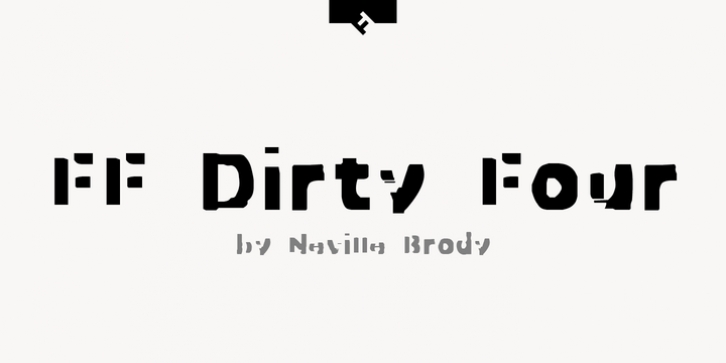
British type designer Neville Brody created this display FontFont in 1994.
The font is ideally suited for advertising and packaging, music and nightlife as well as poster and billboards.
FF Dirty Four provides advanced typographical support with features such as ligatures, alternate characters, and case-sensitive forms.
It comes with proportional lining figures.
This FontFont is a member of the FF Dirty super family, which also includes FF Dirty One, FF Dirty Seven, FF Dirty Six, and FF Dirty Three.